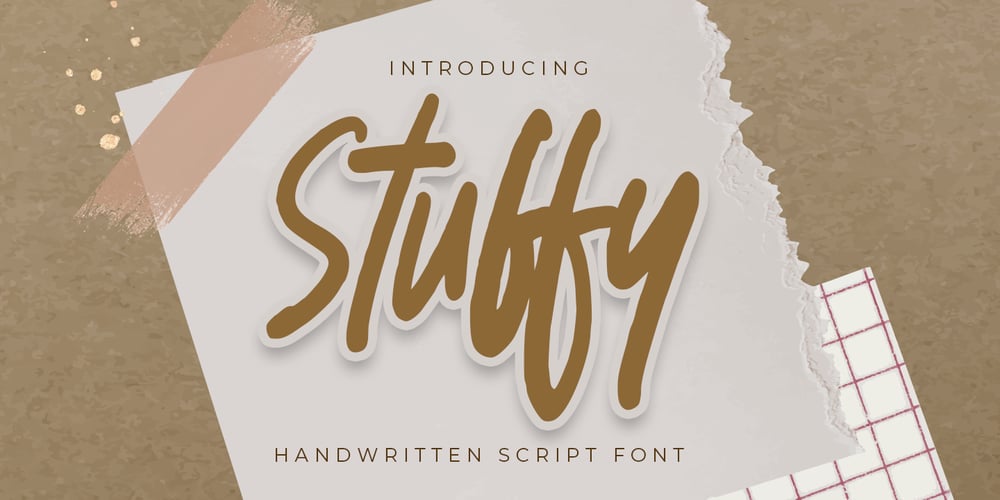
Stuffy Font Family was designed by Abdul Malik Wisnu, Anang Fibriyanto and published by Gassstype. Stuffy contains 1 styles and family package options. Introducing of our new product, Stuffy – Handwritten Script Font font with a natural handwritten feel. This handmade font will make your design has a beautiful natural touch for each details. It is perfect for any design project as Invitation,logo, book cover, craft or any design purposes.This font is PUA encoded which means you can access all of ligatures.